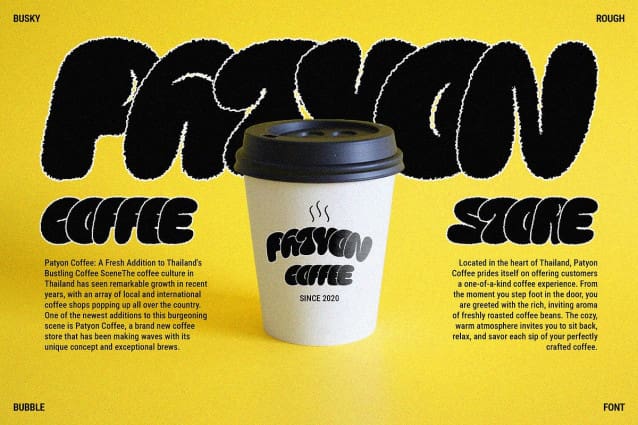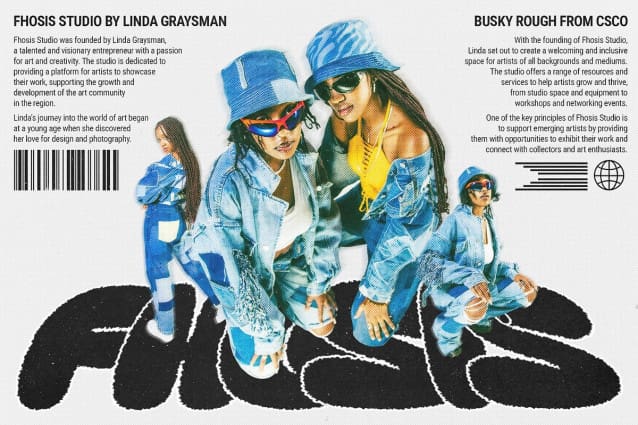
Busky Rough Font
Busky Rough Font is a display font featuring bold, bubble shapes that exude a funky vibe, enhanced by a distinctive rough effect. This font is perfect for designs aiming to highlight cheerfulness and uniqueness, offering a dynamic and characterful look.
The bold, rounded shapes of Busky Rough create an eye-catching and playful aesthetic. These bubble-like forms ensure that your text stands out, making it an ideal choice for posters, branding, and promotional materials that require striking visual elements.
The rough effect in Busky Rough adds texture and depth to the font, giving it a unique and dynamic appearance. This feature enhances the overall visual impact, making your designs more engaging and full of character.
Whether used for event posters, eye-catching branding, or lively promotional materials, Busky Rough excels in projects that want to emphasize creativity and energy. Its playful vibe and rough texture ensure your designs are both memorable and visually appealing.
Choose Busky Rough to bring a funky, bold, and textured touch to your design projects. Perfect for creating cheerful and unique visual elements, this font ensures your work stands out with a distinctive and energetic style.